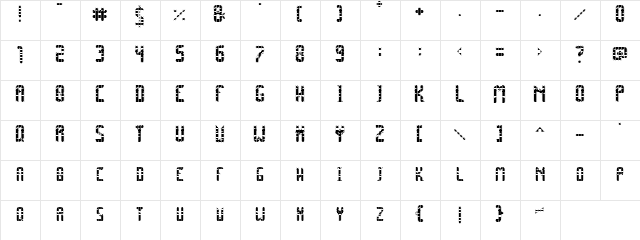
SPACE PEZ College
Design Context for SPACE PEZ Typeface
SPACE PEZ has the bold swagger of sports branding: strong, assertive letterforms designed to dominate headlines and jerseys alike.
Built for sports team identities, athletic apparel, event posters, and high-energy promotional material.
Font Pairing: Use alongside a condensed or geometric sans for supporting copy — keep the pairing bold, functional, and free of ornament.
Pro Tip: SPACE PEZ thrives on contrast — try it large, bold, and tight against a clean background for maximum visual impact.